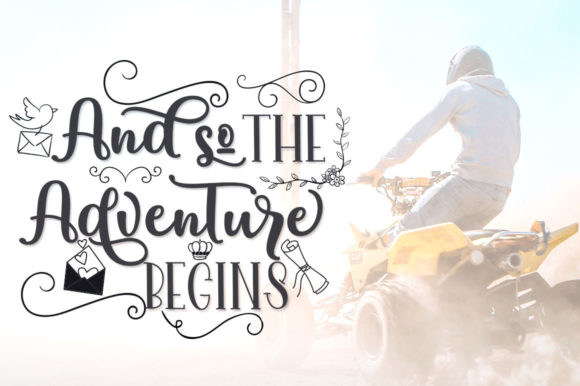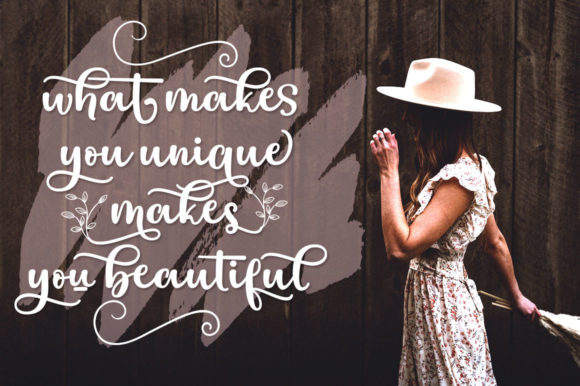
About Derby Font
Derby is a chic, refined script font that emanates sophistication and elegance. Its stylish alternates and ligatures make this font the perfect match for any project.